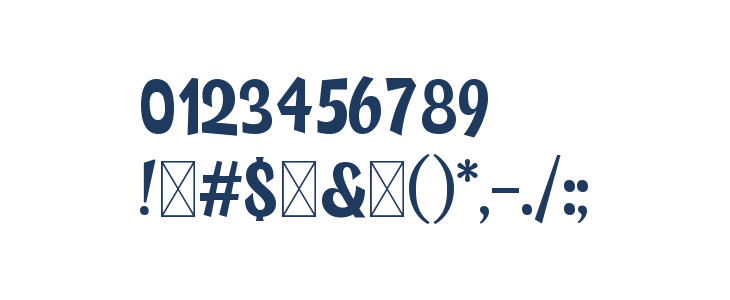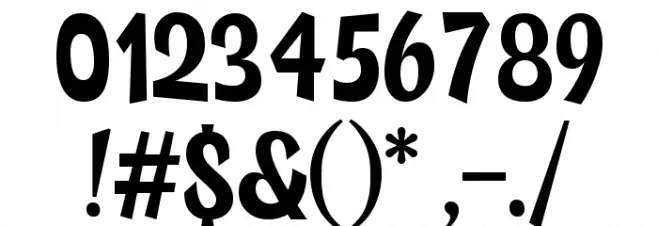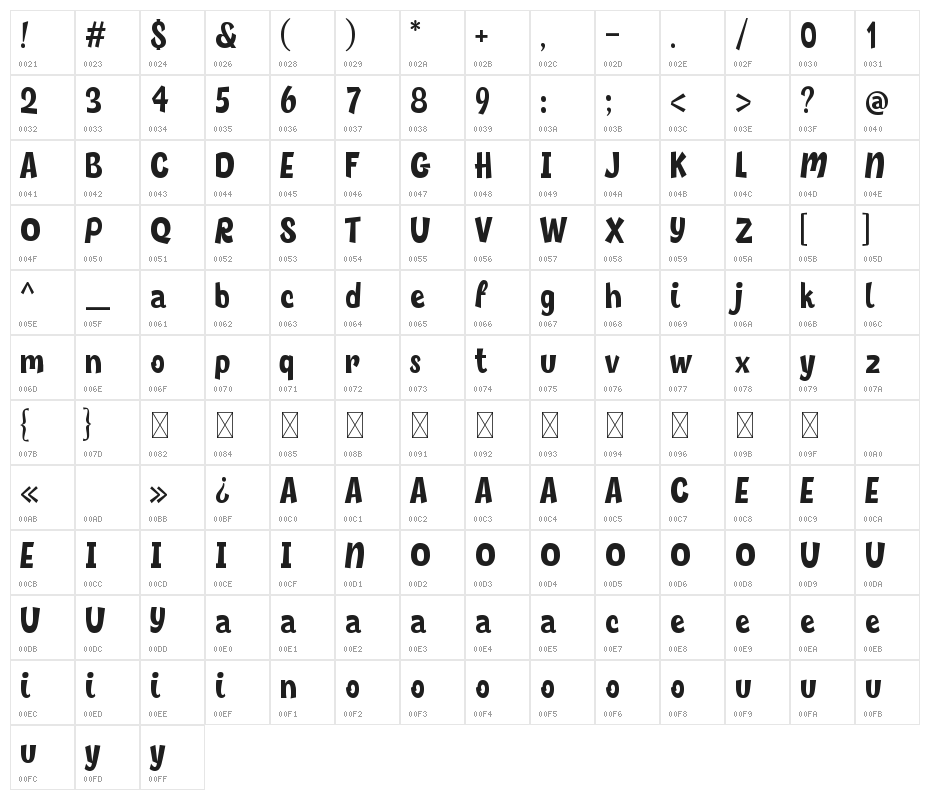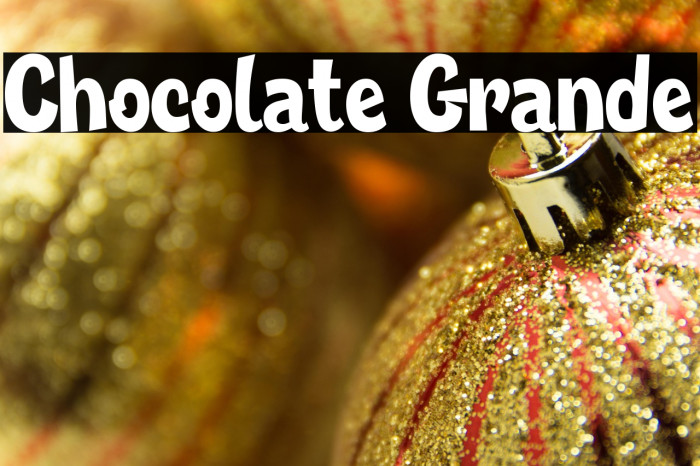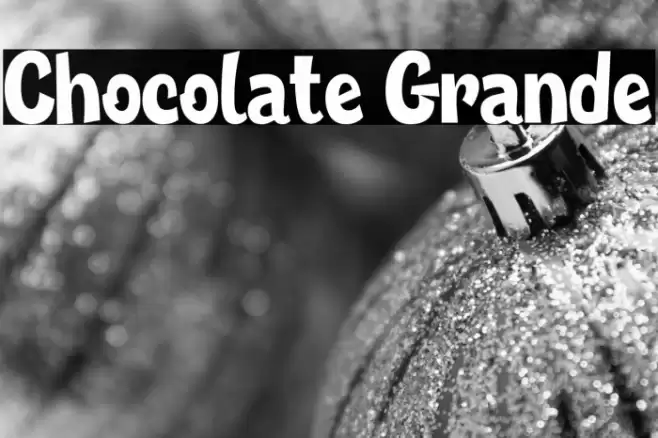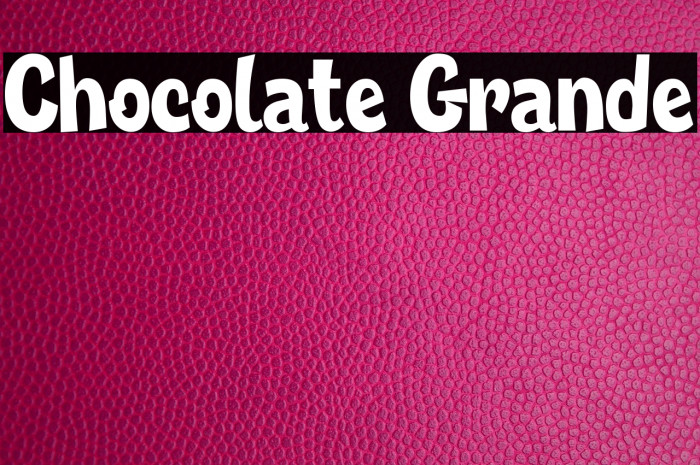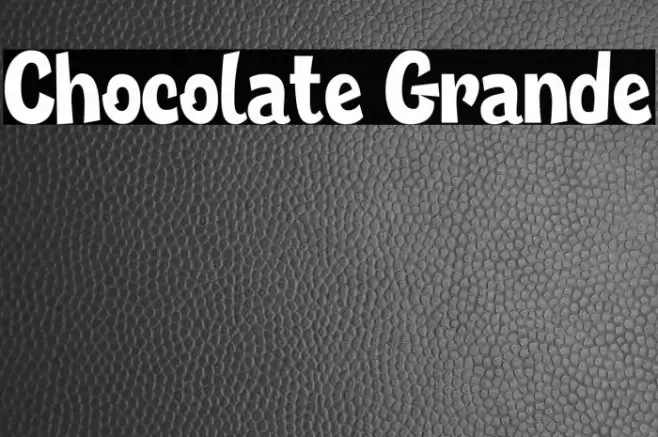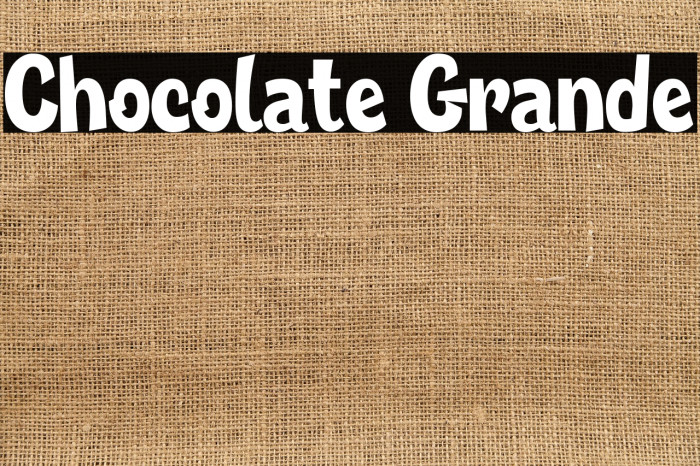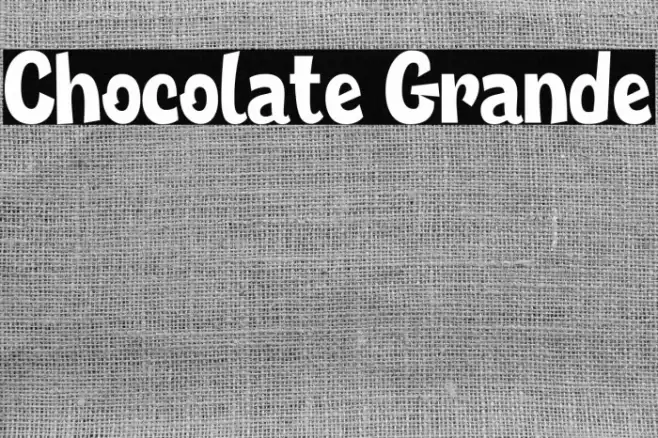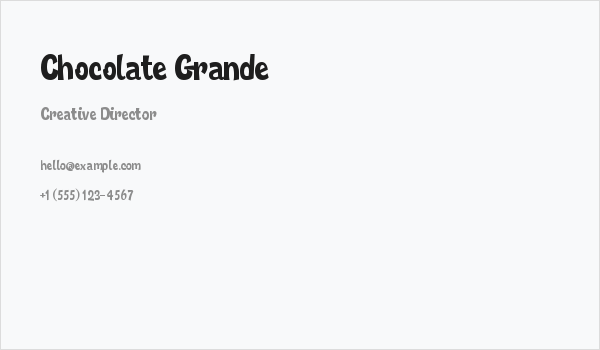
Chocolate Grande Font
Chocolate Grande Description
This playful and bold font features a whimsical design with exaggerated curves and a lively personality. The letters are thick and rounded, giving them a friendly and approachable appearance. The uppercase characters are slightly taller than the lowercase, maintaining a consistent width throughout. Numbers and special characters follow the same playful style, making it versatile for various creative projects. The font's distinct style makes it stand out, perfect for capturing attention in headlines or logos. Its unique character shapes and bold presence make it ideal for designs that require a fun and energetic vibe.
| Proposed Projects | Ideal for children's books, playful branding, posters, and creative advertising. |